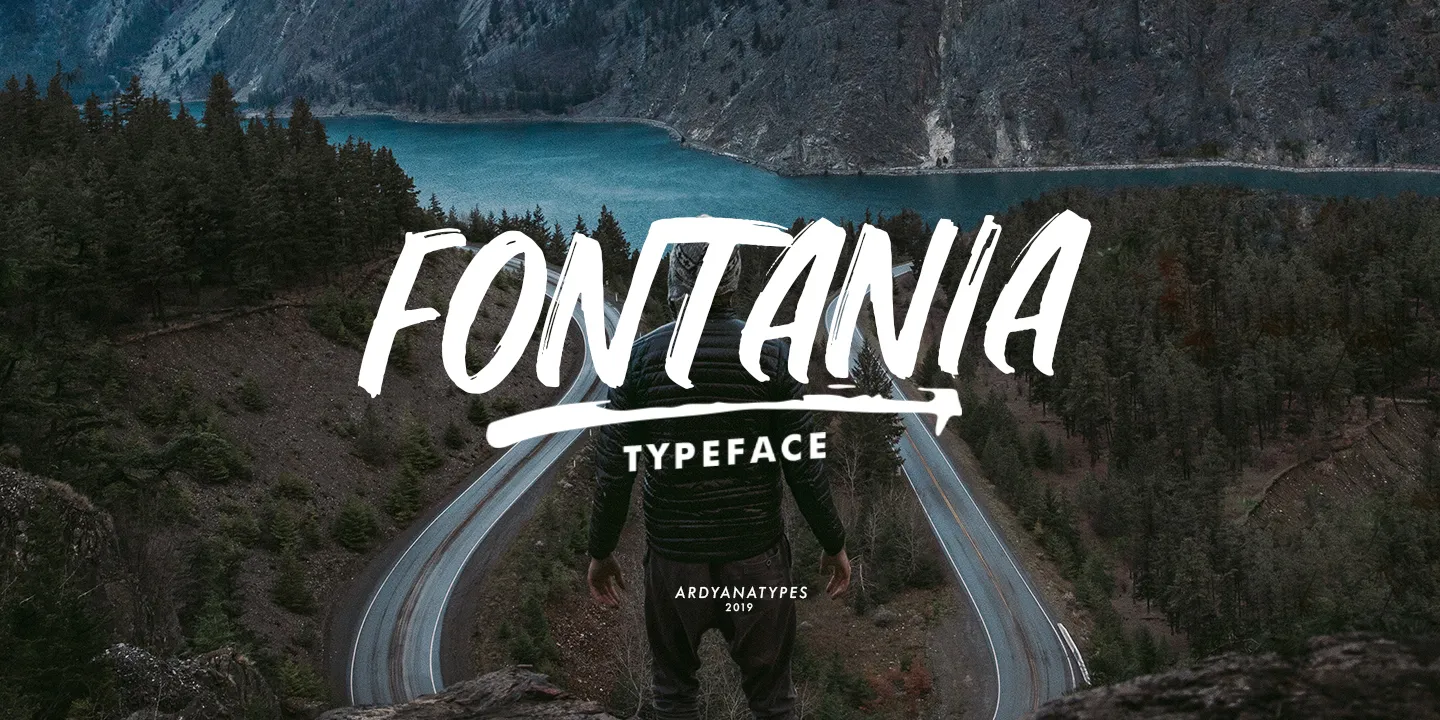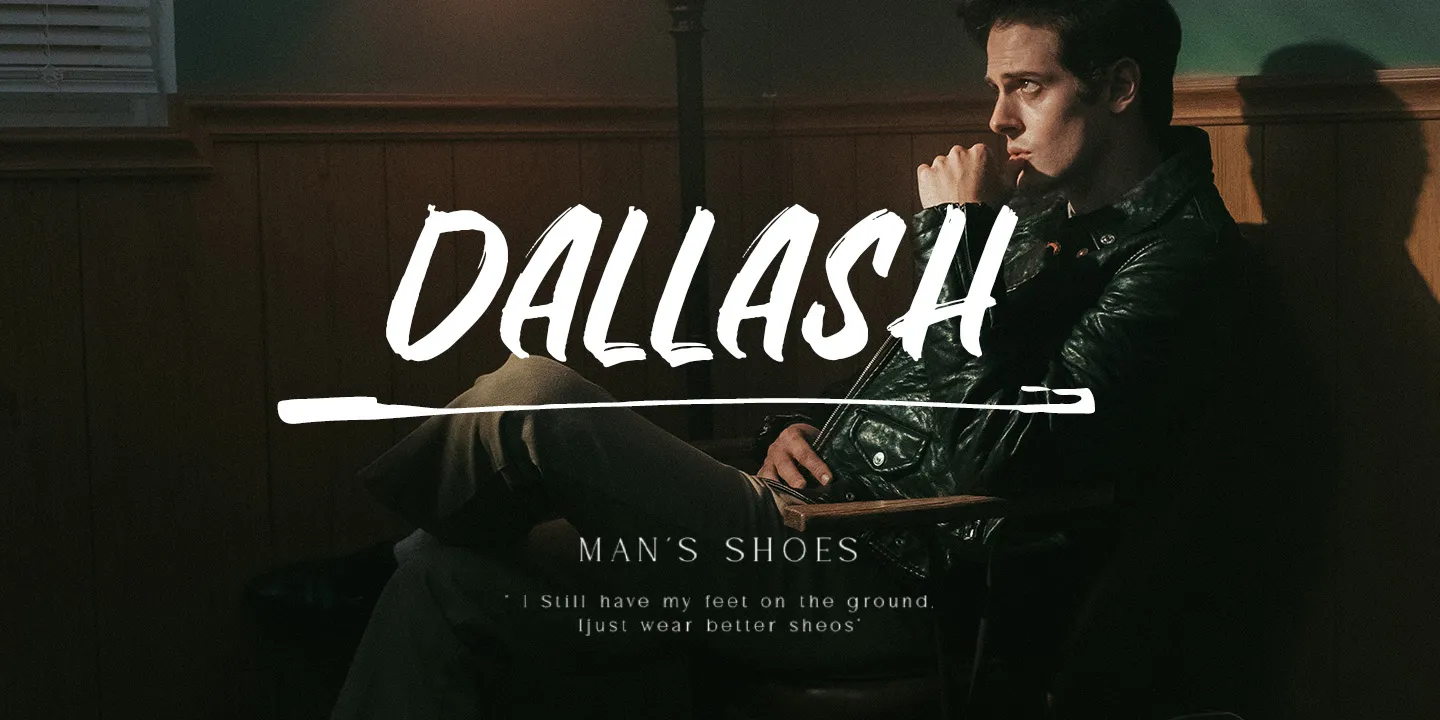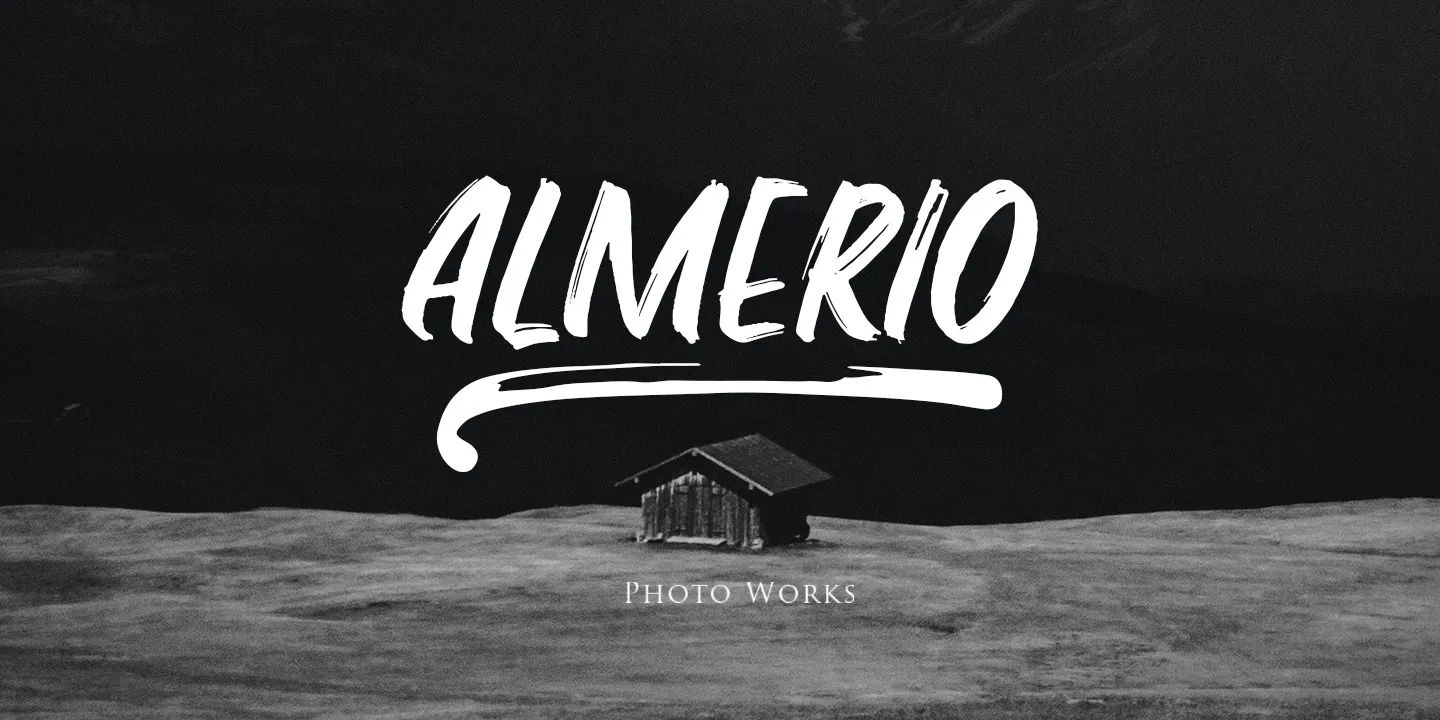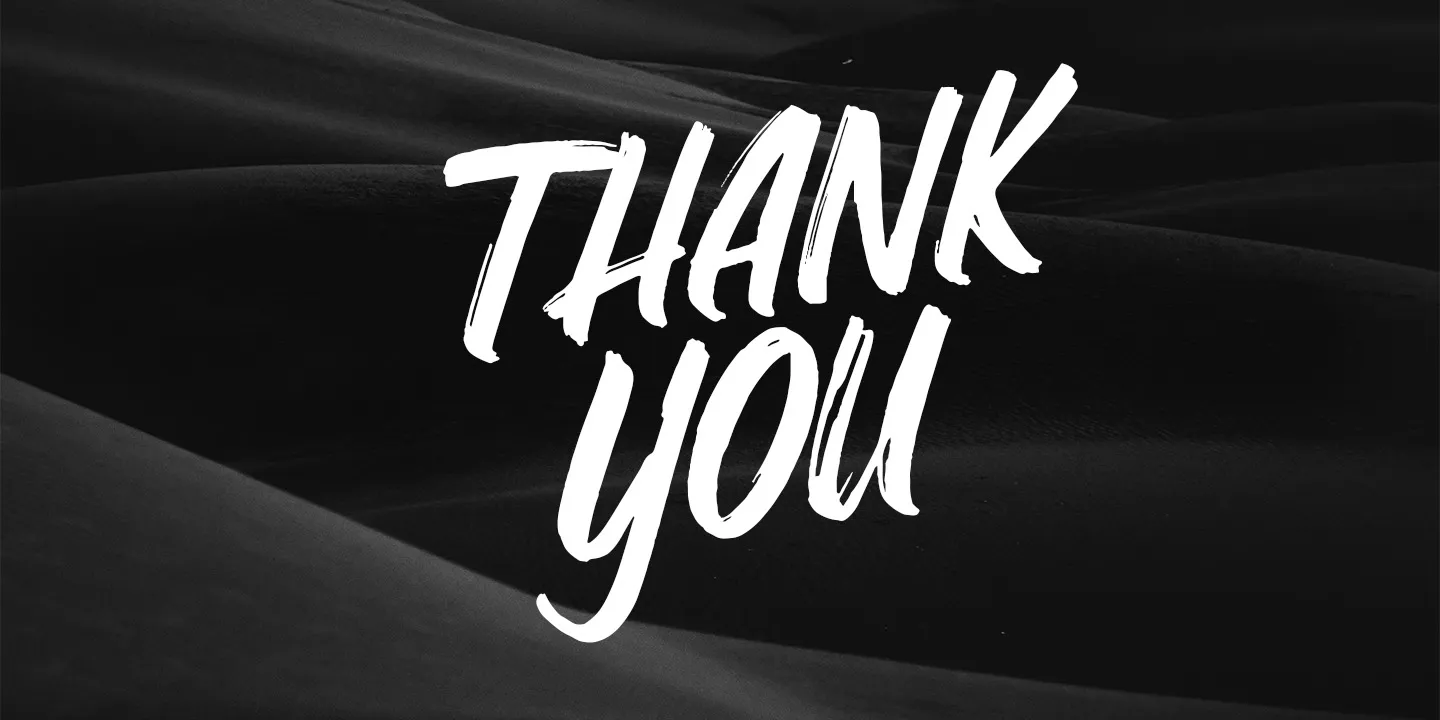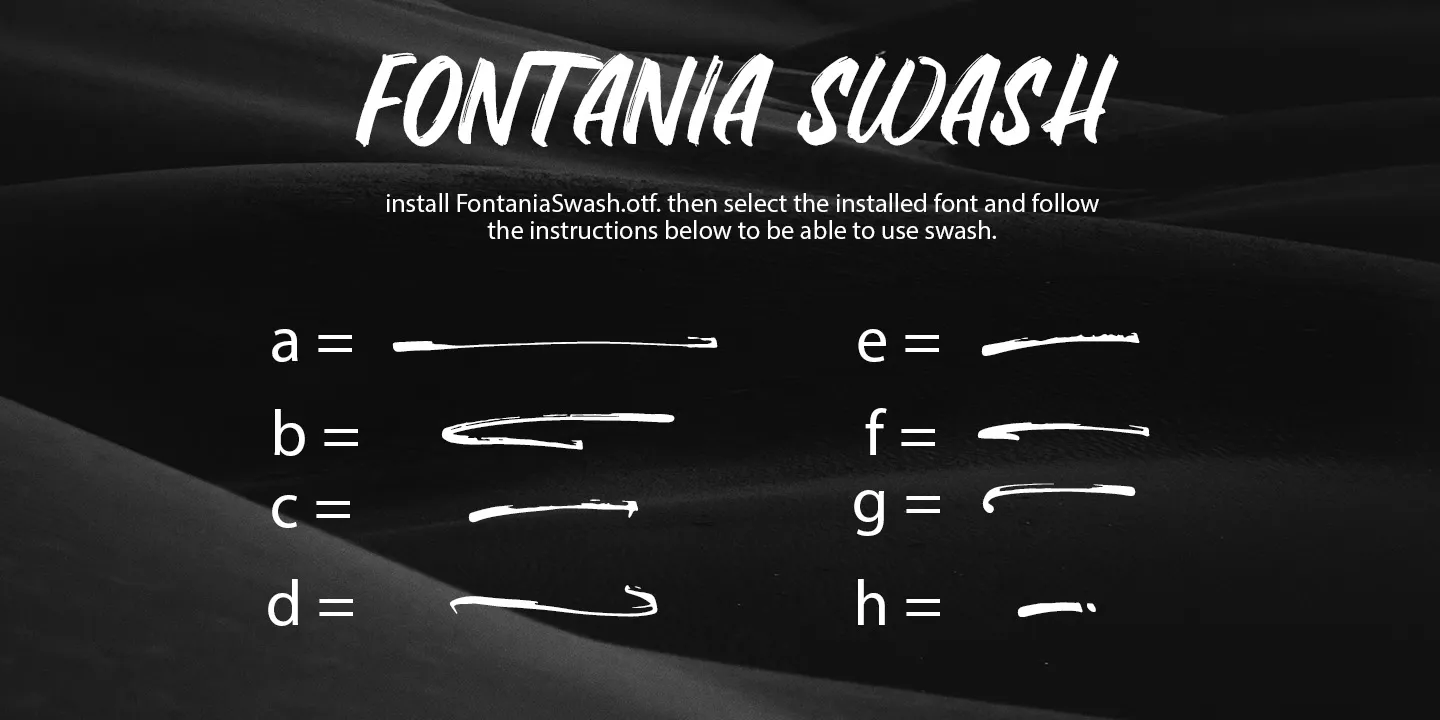
Fontania
A brush font is a typeface or font created using a brush or brush, giving each letter a bold, grainy texture. Usually, brush fonts are used to create more natural designs, such as on posters, t-shirts, or artwork. The most notable characteristics of brush fonts are their varying thickness, rough texture, and sharper letter edges. Brush fonts are also often produced in the form of handwriting or artwork so that they give a more personal and unique impression.